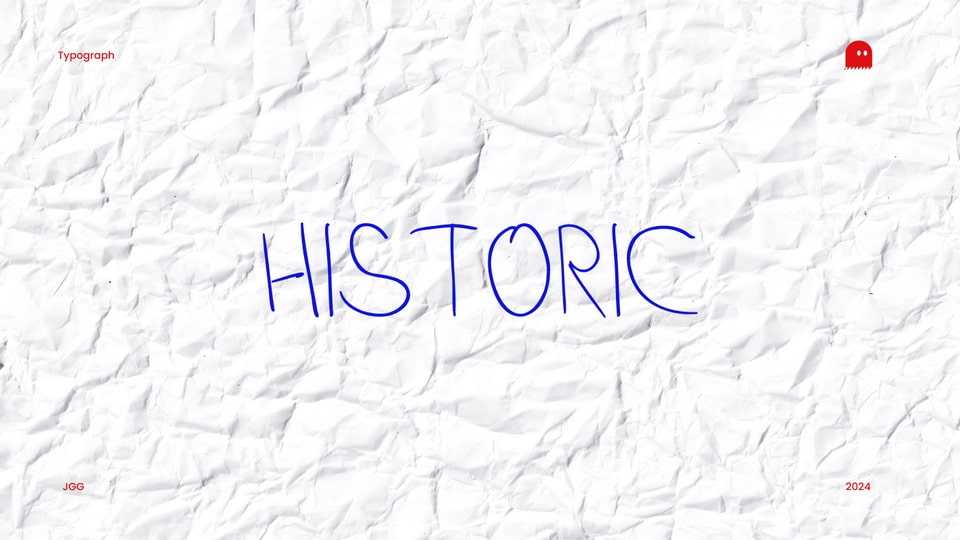
Download Historic font, an original creation that captures the essence of handwritten school texts with its organic strokes and a nostalgic touch.
Designer: João G. Gonçalves